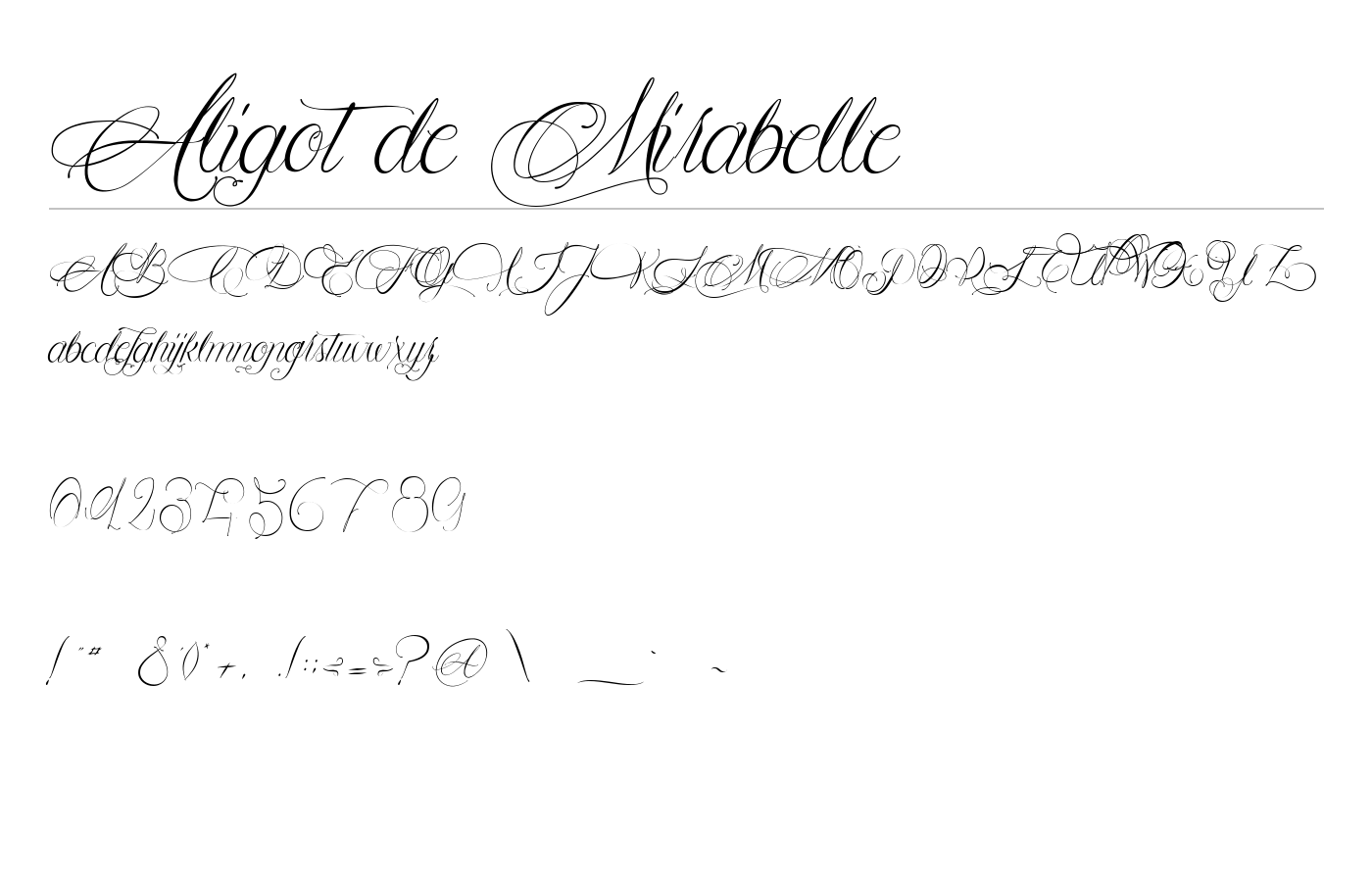
Aligot de Mirabelle is an elegant, highly decorative script font featuring delicate, flowing lines and elaborate swashes that give it a luxurious and sophisticated feel. Its fine, almost hairline strokes with intricate details make it ideal for high-end branding, wedding invitations, and elegant logos where a refined, ornate style is desired. This font works best in large sizes as a display typeface, adding a graceful and artistic touch to any design.
Aligot de Mirabelle Font
About Aligot de Mirabelle Font
| Font family | Aligot de Mirabelle Font |